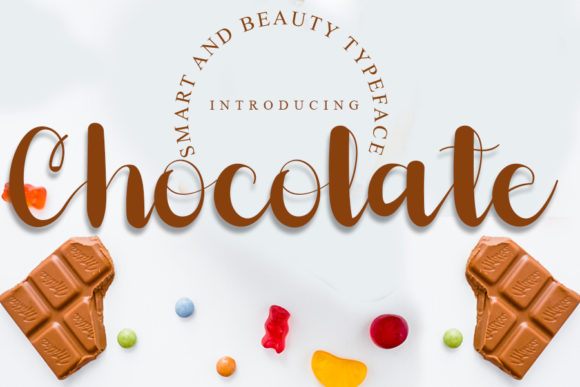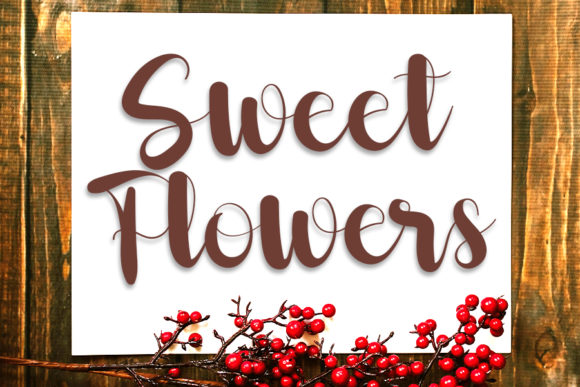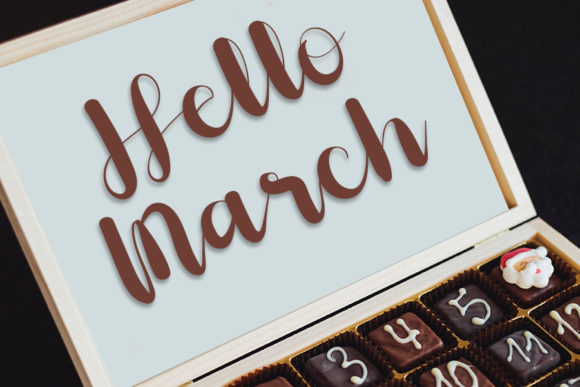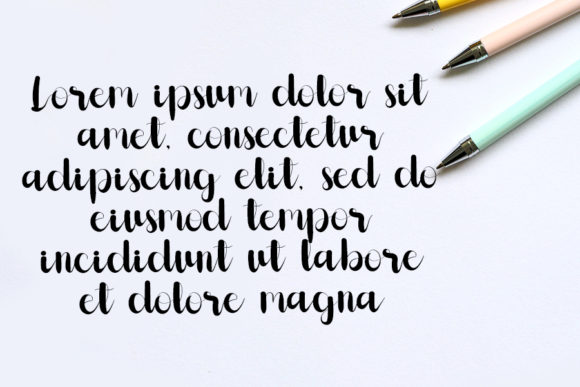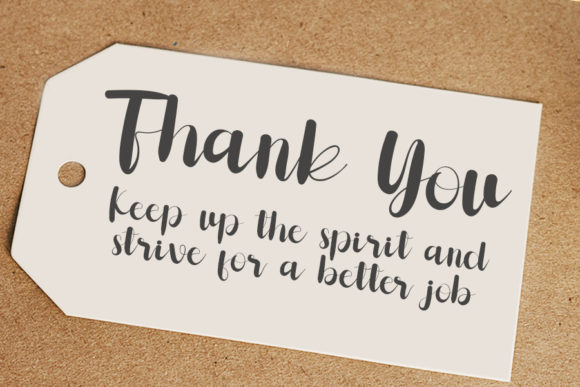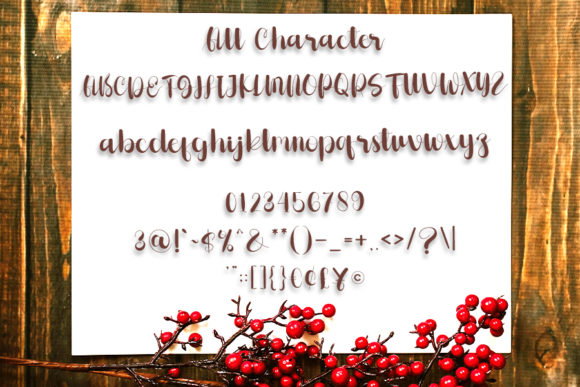
Chocolate Font
About Chocolate Font
Chocolate is a lovely and timeless handwritten font. It is the best choice for creating eye catching logos, branding and quotes. Every letter has a unique and beautiful touch, which will make your design come alive!